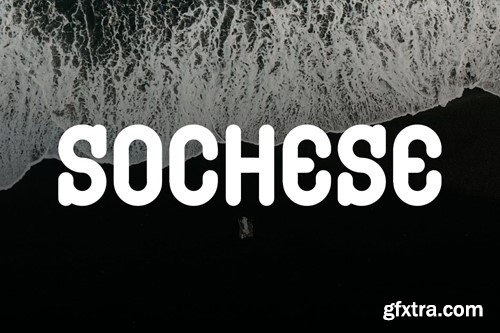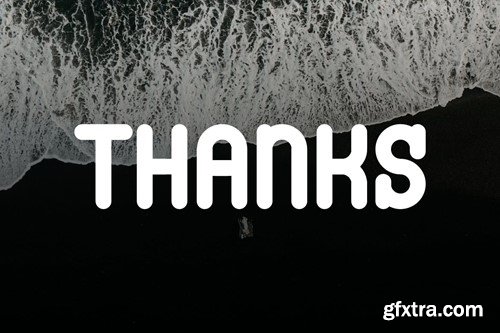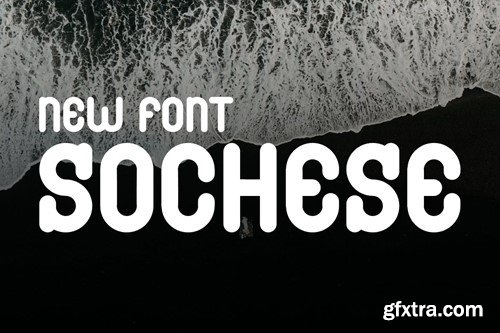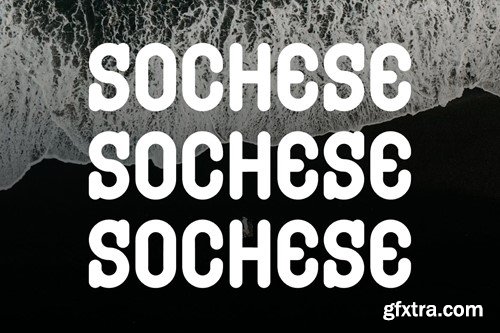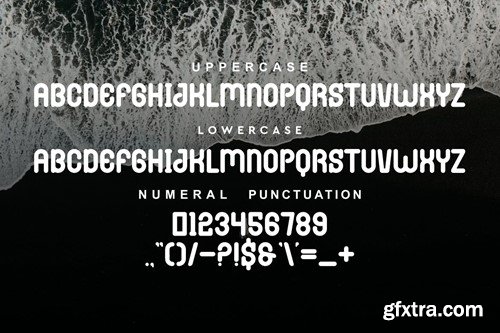
Sochese - Rounded Font
Sochese - Rounded Font Font is unique . Ready to use for your design like labeling, movie sceen, poster, movie title, gigs, album covers, logos, and much more. Included